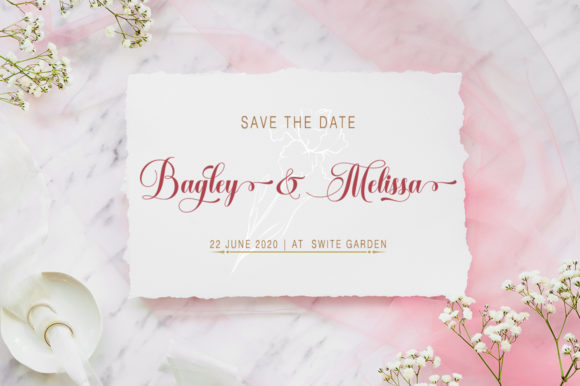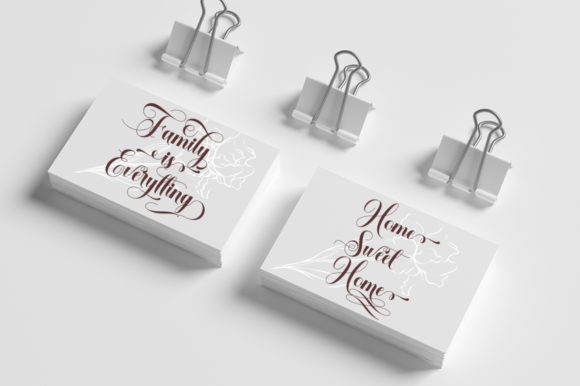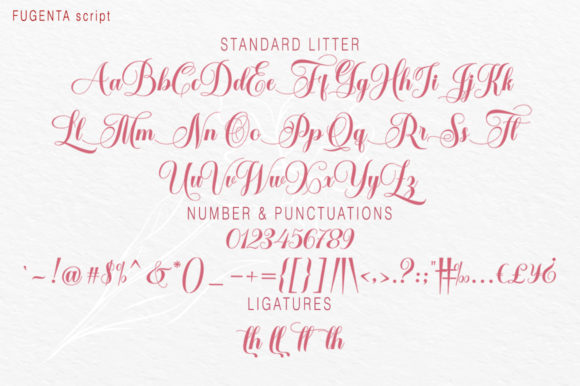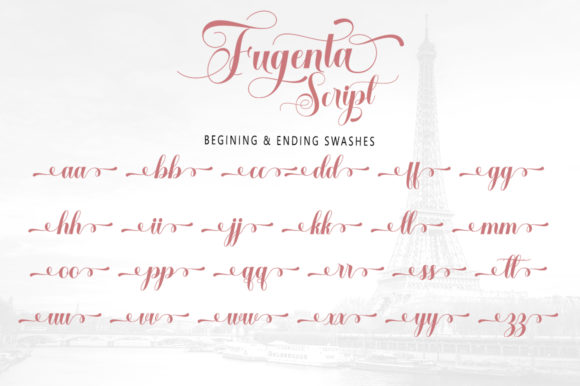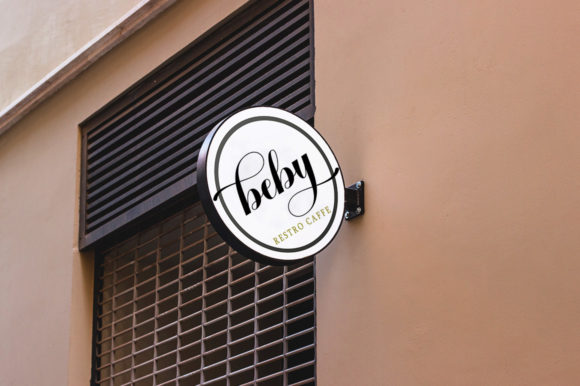
Fugenta Font: Elevate Your Designs with Timeless Elegance
Are you a designer or crafter looking for a font that exudes elegance and sophistication? Look no further than Fugenta, a magical handwritten font that combines timeless elegance with authentic calligraphy. In this article, we’ll dive into the features and benefits of Fugenta, and explore how it can elevate your design projects to the highest level.
What is Fugenta Font?
Fugenta is a beautifully crafted handwritten font that is designed to add a touch of elegance to any design project. With its unique blend of classic and modern elements, Fugenta is perfect for a wide range of applications, from branding and headings to wedding designs, invitations, signatures, logos, labels, and more.
Key Features of Fugenta Font
- PUA Encoded: Fugenta is PUA encoded, which means you can access all of the cute glyphs and swashes with ease. This makes it easy to customize your designs and add a personal touch.
- Alternate Glyphs and Ligatures: Fugenta features a wealth of special features, including alternate glyphs and ligatures. These features allow you to create unique and creative designs that stand out from the crowd.
- Timeless Elegance: Fugenta’s classic design ensures that your projects will never go out of style. Whether you’re creating a logo, invitation, or wedding design, Fugenta’s elegant lines and curves will add a touch of sophistication.
- Authentic Calligraphy: Fugenta’s handwritten design is authentic and genuine, giving your projects a personal and human touch.
Benefits of Using Fugenta Font
So why choose Fugenta for your design projects? Here are just a few benefits of using this amazing font:
- Elegance and Sophistication: Fugenta adds a touch of elegance and sophistication to any design project, making it perfect for high-end branding, wedding designs, and more.
- Versatility: Fugenta is versatile and can be used for a wide range of design projects, from logos and headings to invitations and labels.
- Unique and Creative: With its alternate glyphs and ligatures, Fugenta allows you to create unique and creative designs that stand out from the crowd.
How to Use Fugenta Font
- Pair it with Other Fonts: Fugenta pairs well with other fonts, so don’t be afraid to experiment with different combinations.
- Experiment with Glyphs and Swashes: With Fugenta’s PUA encoding, you can access a wide range of glyphs and swashes. Experiment with different combinations to add a personal touch to your designs.
- Use it for Headings and Titles: Fugenta’s elegant design makes it perfect for headings and titles. Use it to add a touch of sophistication to your designs.